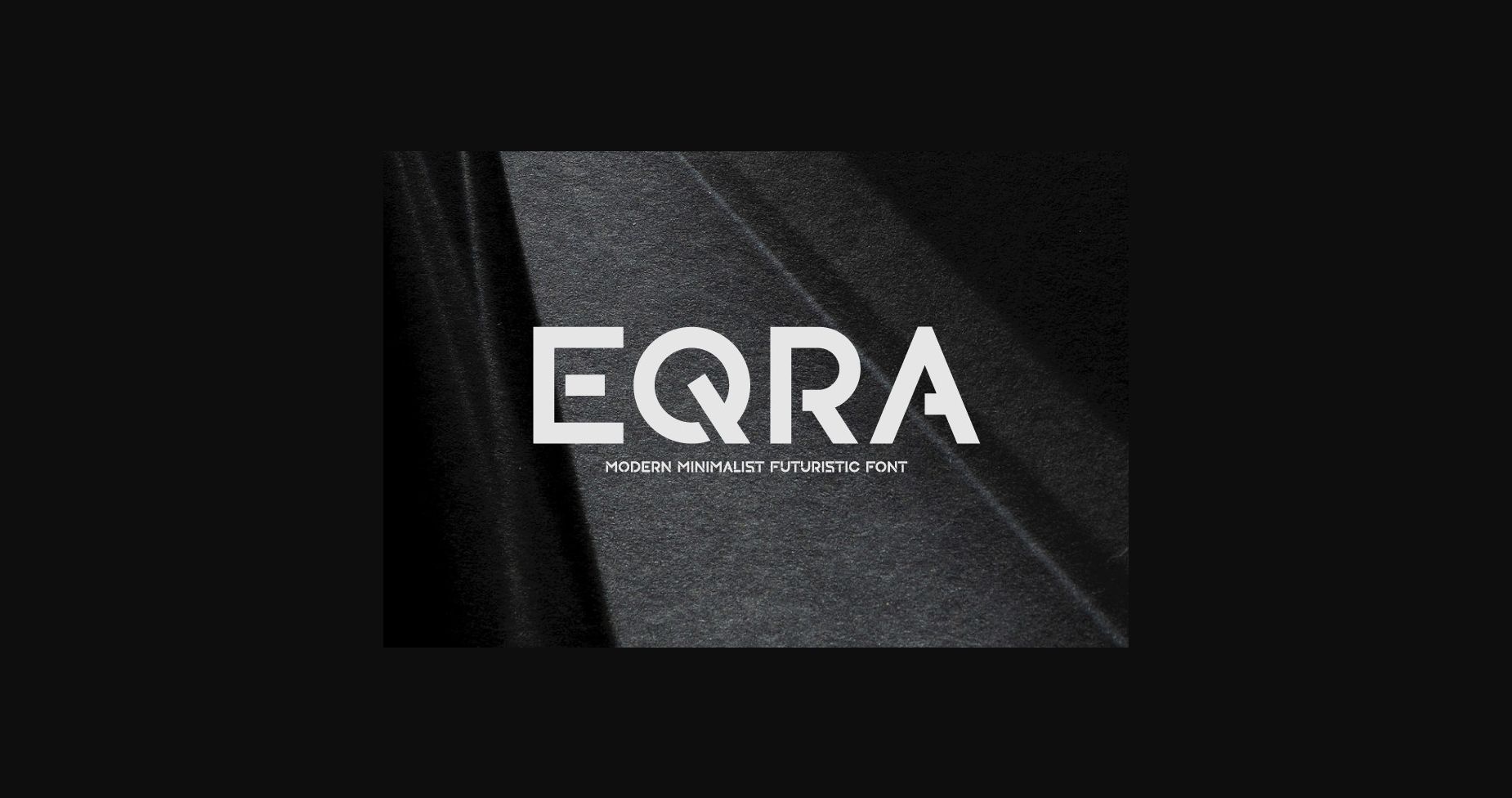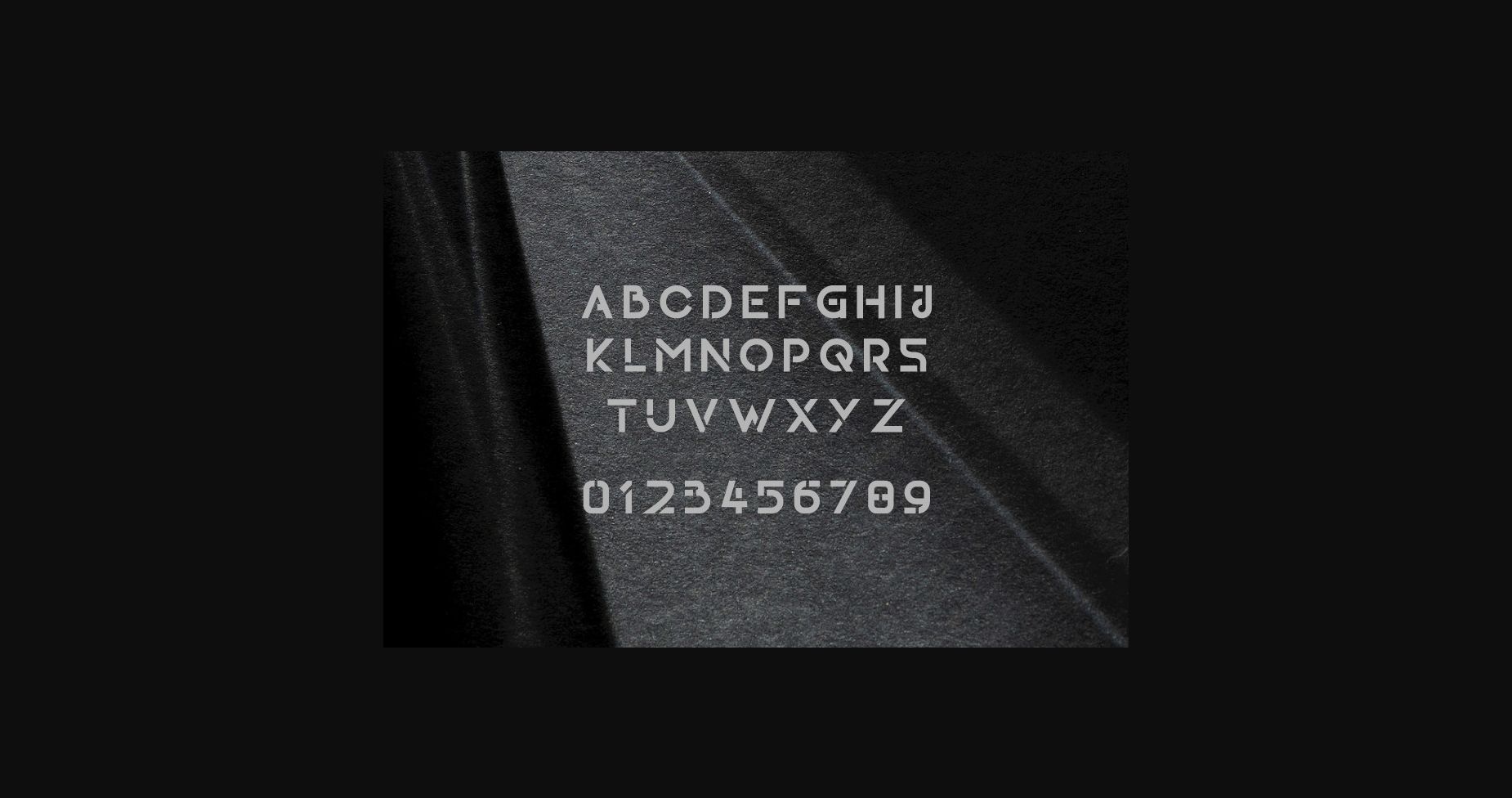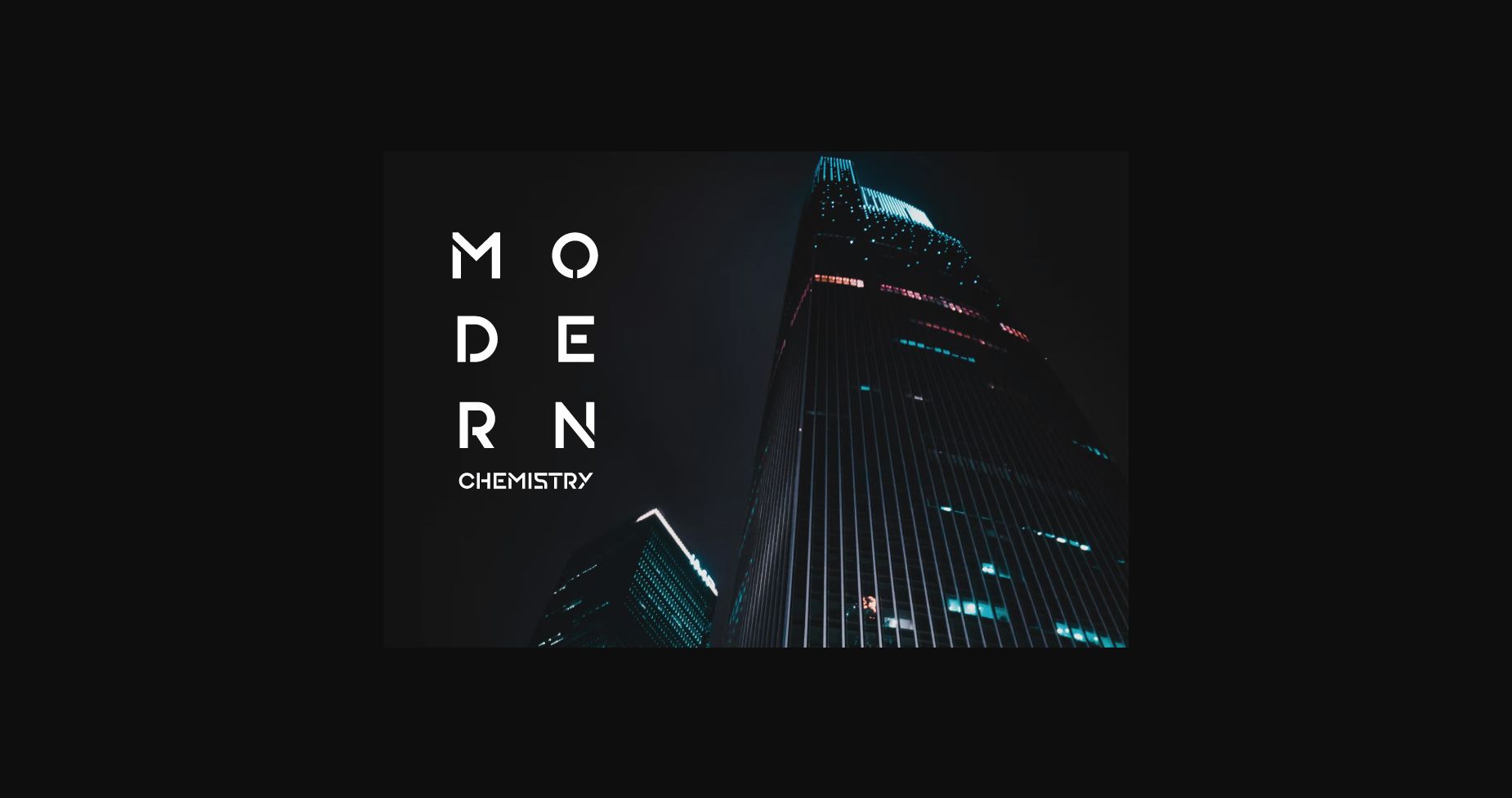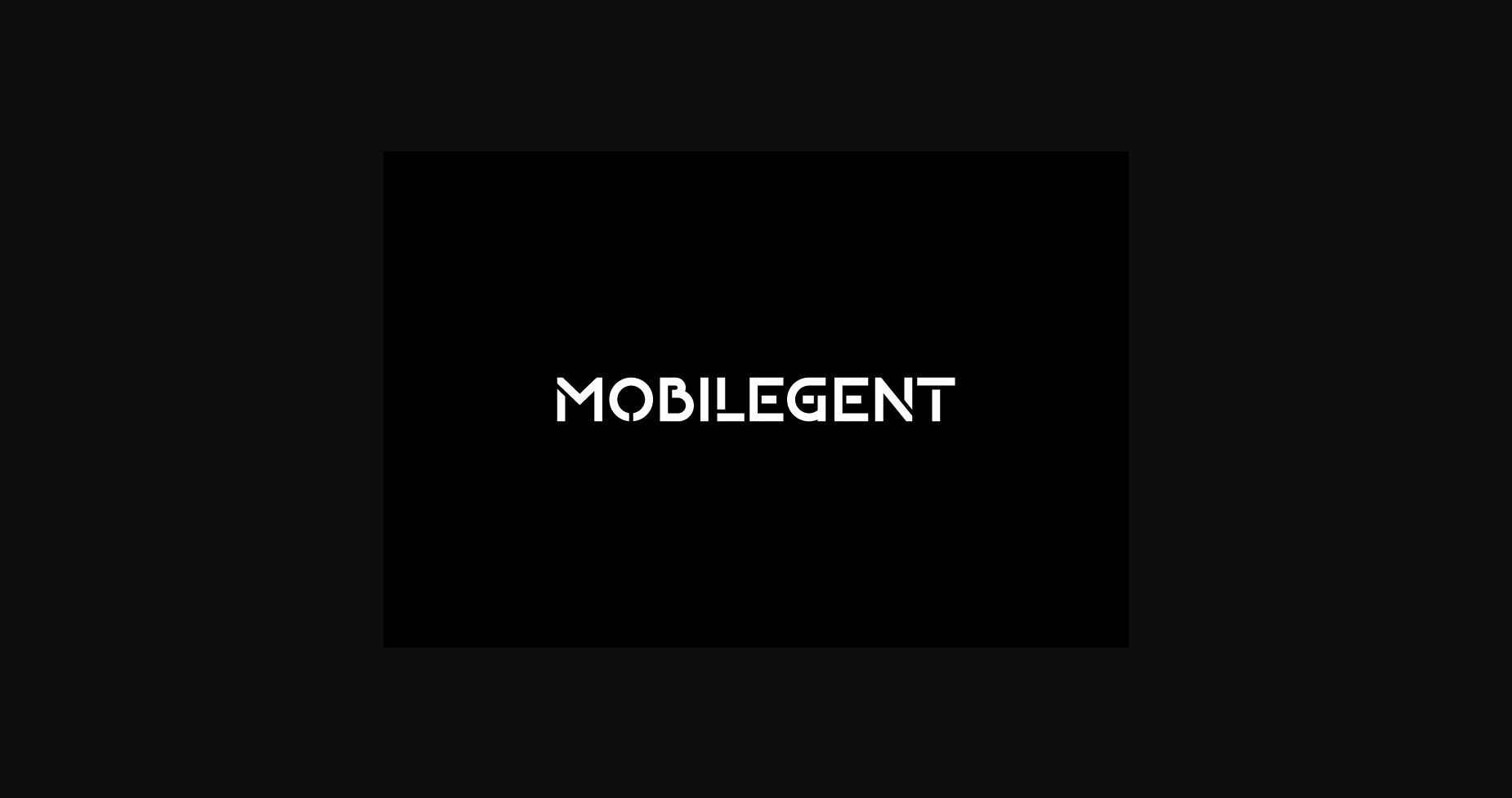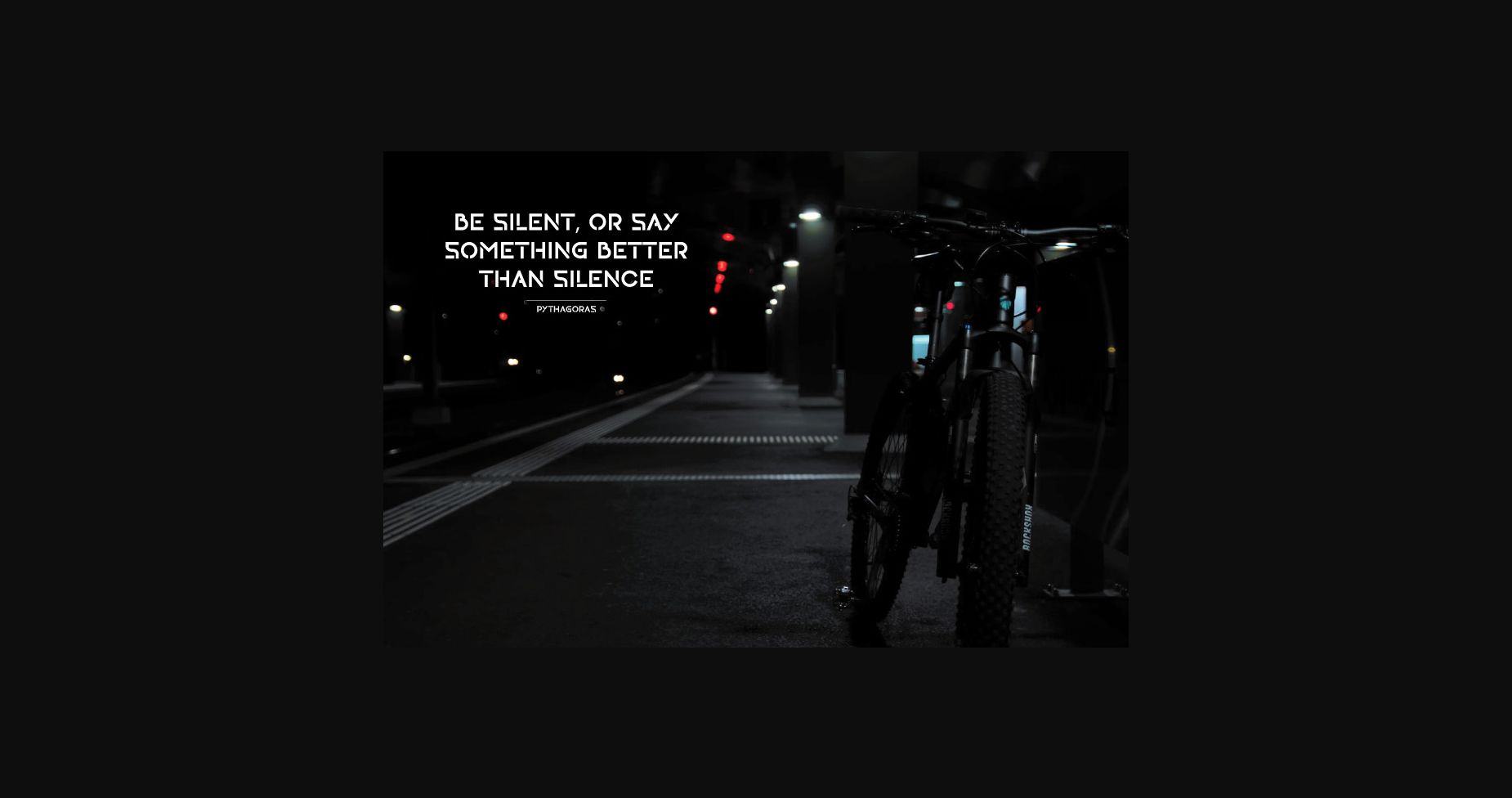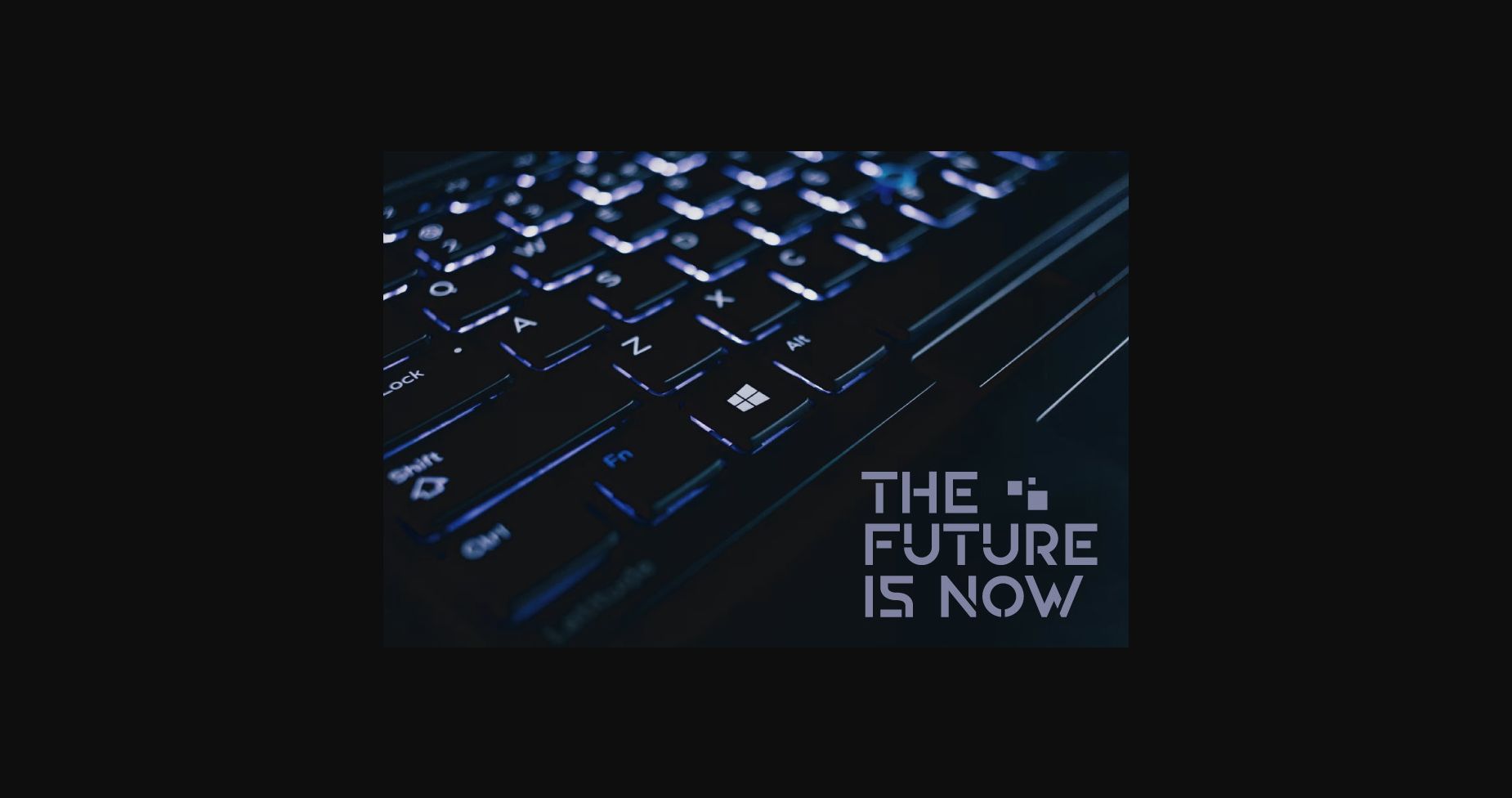
Eqra Font
About Eqra Font
Eqra is a modern and minimalist sans serif font with clean edges and a very tidy appearance. It’s a wonderful font for urban crafts, futuristic designs, and other cool creative projects!